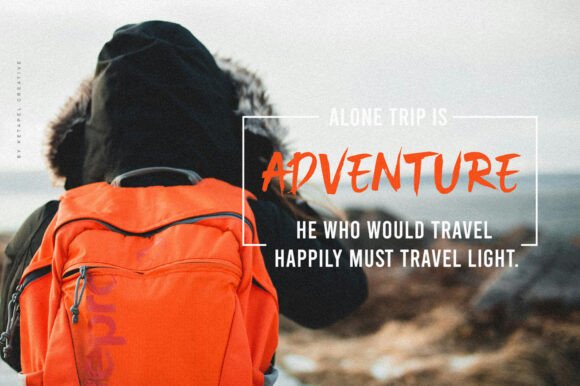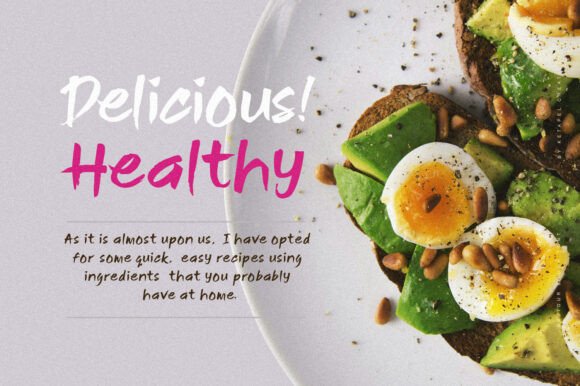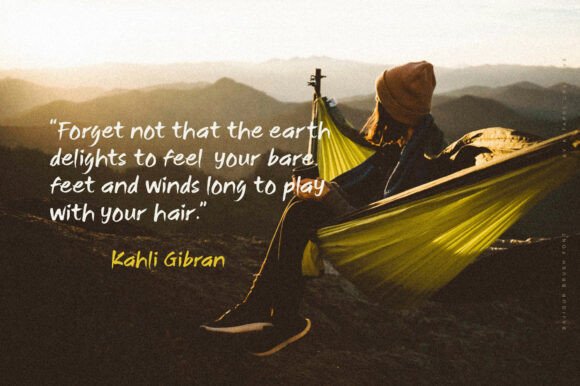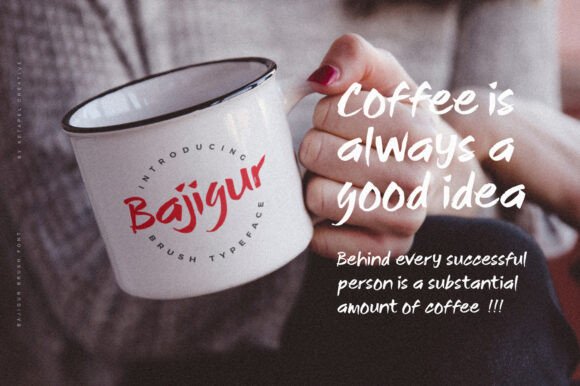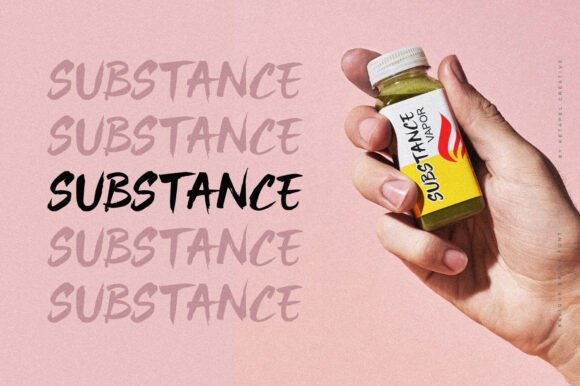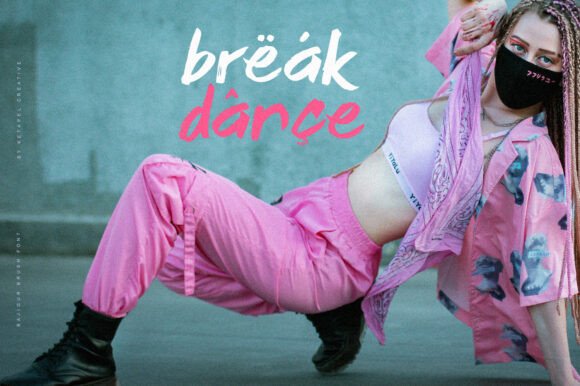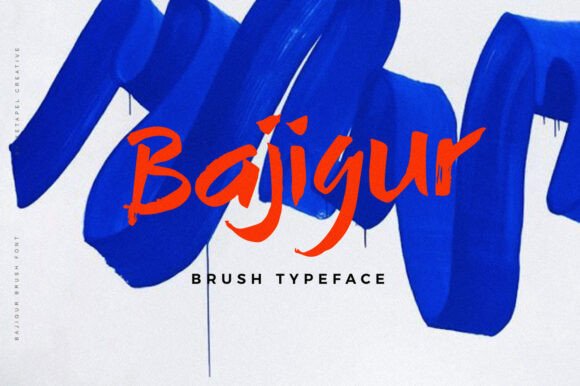
Bajigur Font: The Exciting Brush Display Typeface for Your Creative Projects
Are you a designer or crafter looking for a unique and exciting font to elevate your creative projects? Look no further than the Bajigur Font! This stunning brush display typeface is perfectly suited for a wide variety of projects, from branding and advertising to packaging and digital media. In this article, we’ll take a closer look at the Bajigur Font, its features, and how you can use it to add a touch of personality to your designs.
What is Bajigur Font?
Bajigur Font is a brush display typeface that boasts exciting characters with a unique and artistic flair. Its bold and expressive design makes it perfect for headlines, titles, and short texts. The font’s brush-like strokes and varying line widths give it a handcrafted feel that’s sure to grab attention. Whether you’re designing a logo, creating a social media graphic, or crafting a website, Bajigur Font is an excellent choice.
Key Features of Bajigur Font
- Unique and Artistic Design: Bajigur Font features a one-of-a-kind design that’s sure to make your projects stand out. Its brush-like strokes and varying line widths give it a handcrafted feel that’s perfect for creative projects.
- Exciting Characters: The font comes with a range of exciting characters, including uppercase and lowercase letters, numbers, and punctuation marks. Each character is carefully crafted to ensure that your text looks amazing.
- Multilingual Support: Bajigur Font supports multiple languages, making it a great choice for designers and crafters who work with international clients or want to create projects for a global audience.
How to Use Bajigur Font in Your Designs
- Headlines and Titles: Use Bajigur Font for headlines and titles to add a touch of personality to your designs. Its bold and expressive design makes it perfect for grabbing attention.
- Branding and Advertising: Use Bajigur Font for branding and advertising projects, such as logos, business cards, and brochures. Its unique design will help your brand stand out.
- Digital Media: Use Bajigur Font for digital media, such as social media graphics, website headers, and email newsletters. Its bold design will make your content stand out.
- Pair it with Other Fonts: Experiment with pairing Bajigur Font with other fonts to create a unique look. Try pairing it with a clean sans-serif font for a bold and modern look.
Benefits of Using Bajigur Font
- Unique Design: Bajigur Font features a unique design that’s sure to make your projects stand out. Its bold and expressive design will grab attention and leave a lasting impression.
- Versatility: Bajigur Font is versatile and can be used for a wide range of projects, from branding and advertising to digital media.